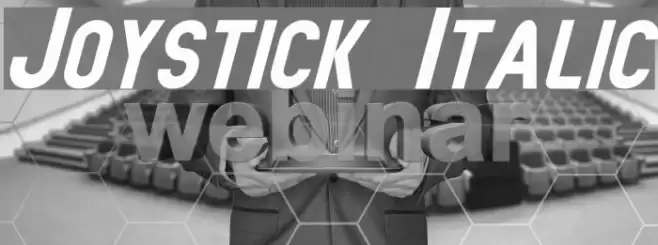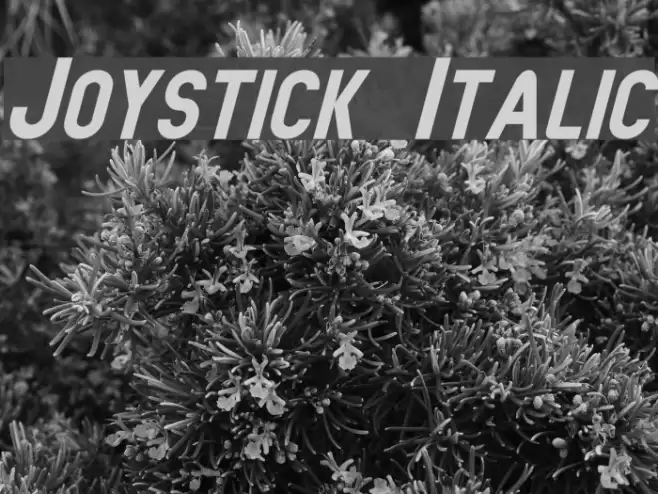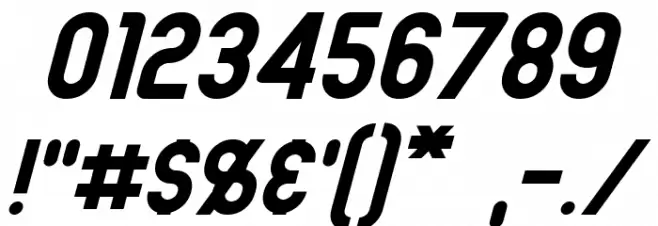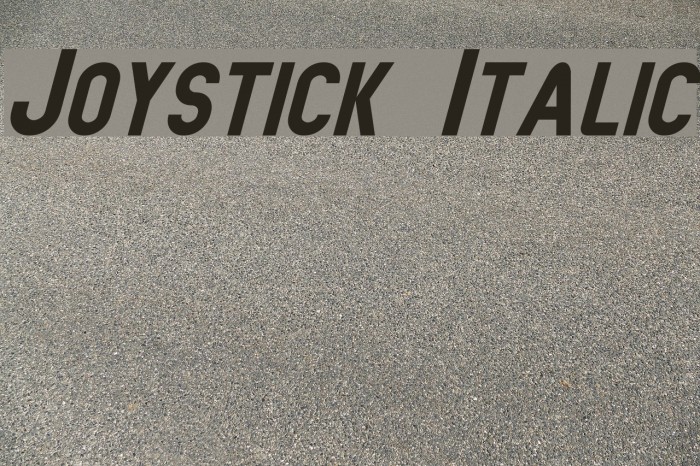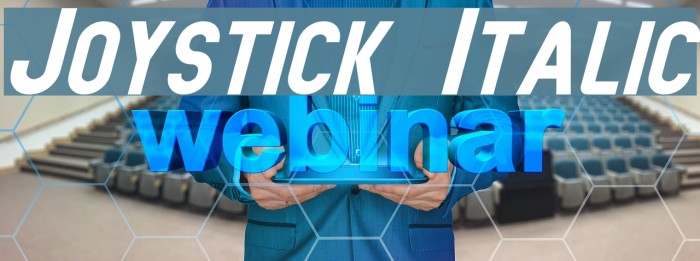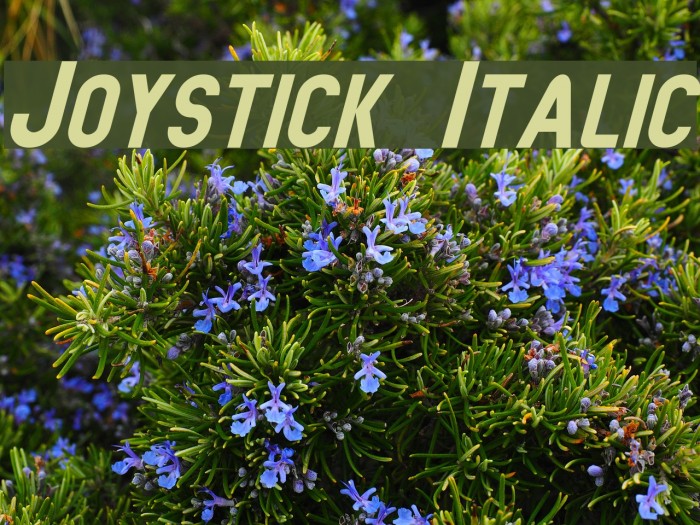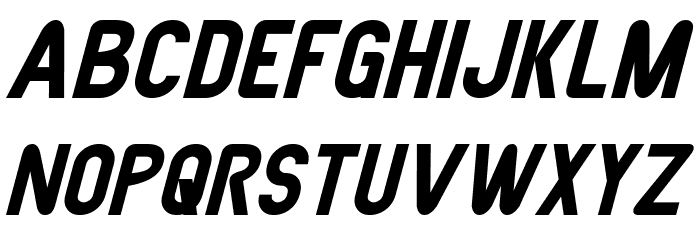
Joystick Italic Font
Joystick Italic Description
This font exhibits a dynamic and energetic style with a pronounced italic slant, giving it a sense of motion and speed. The characters are bold and robust, with a slightly condensed width that enhances its compact appearance. The strokes are consistent in thickness, providing a medium contrast that balances readability with style. The overall design is modern and sleek, making it suitable for projects that require a contemporary and impactful look. The font includes a full set of uppercase and lowercase letters, numerals, and a variety of special characters, ensuring versatility in its application.
A bold, italic font with a modern and dynamic style from Uncategorized fonts.
- Proposed Projects: Ideal for sports branding, dynamic posters, video game titles, and modern advertising campaigns.